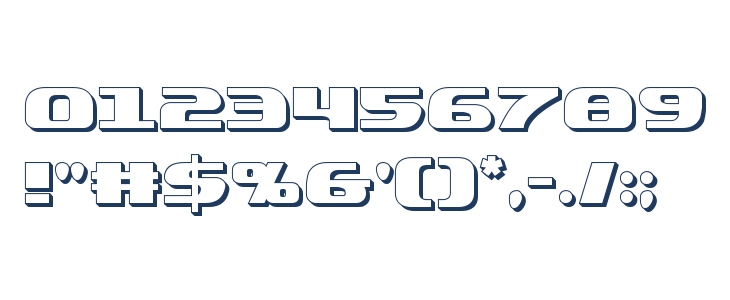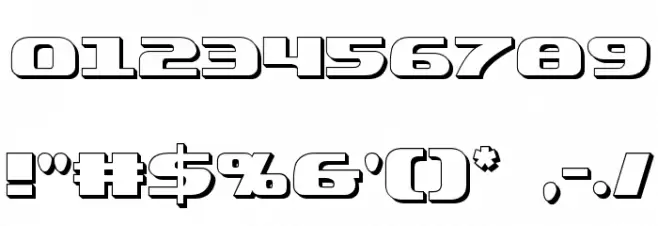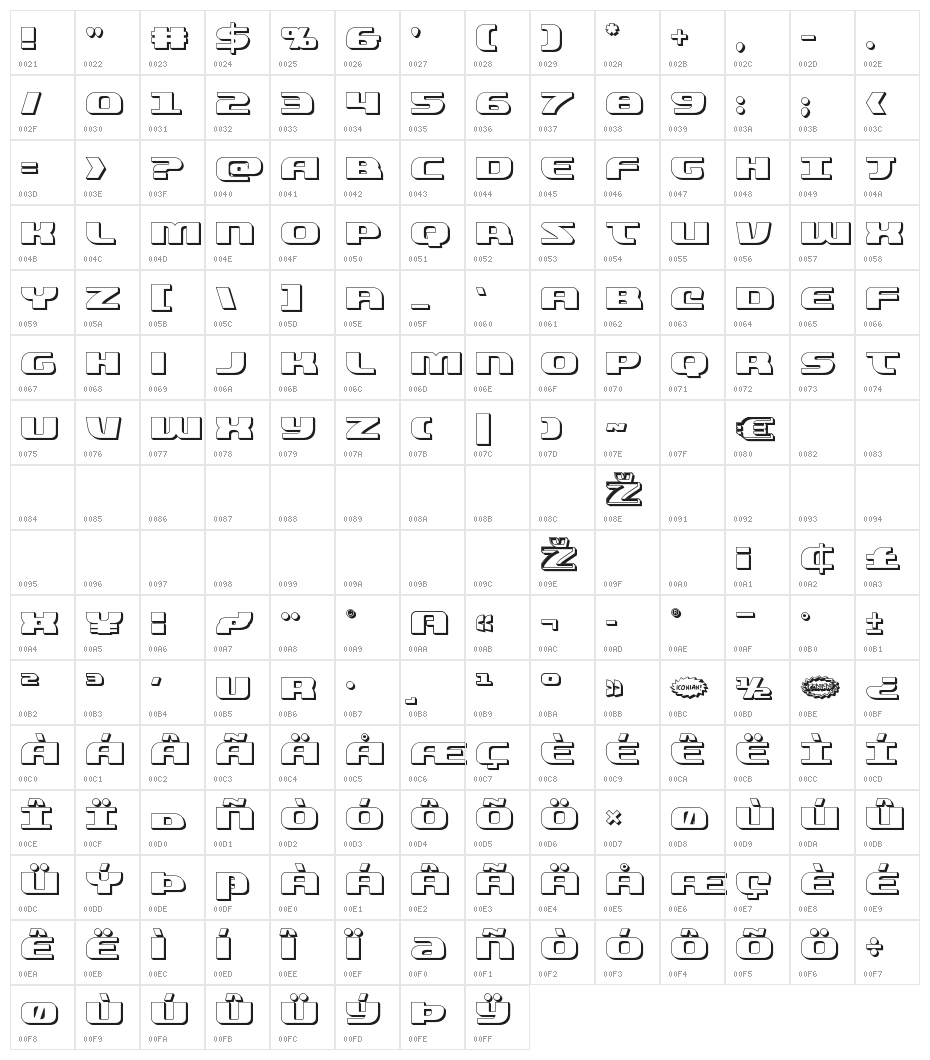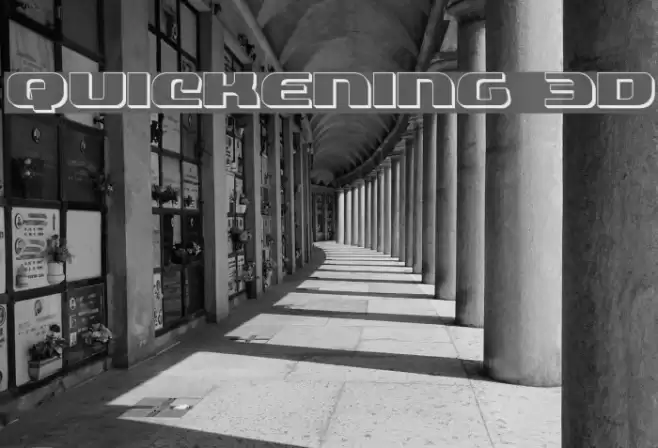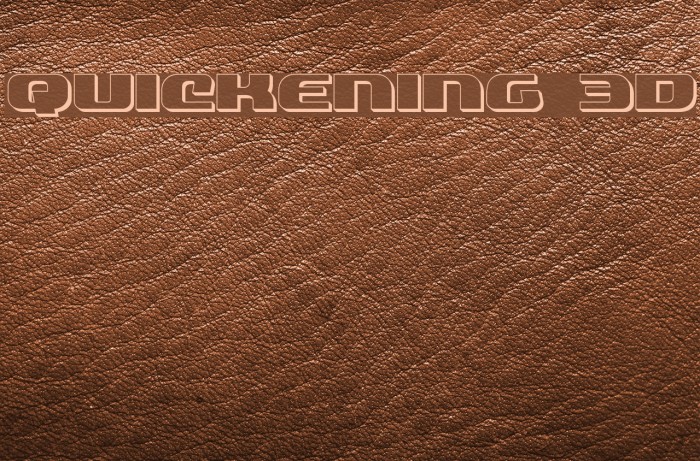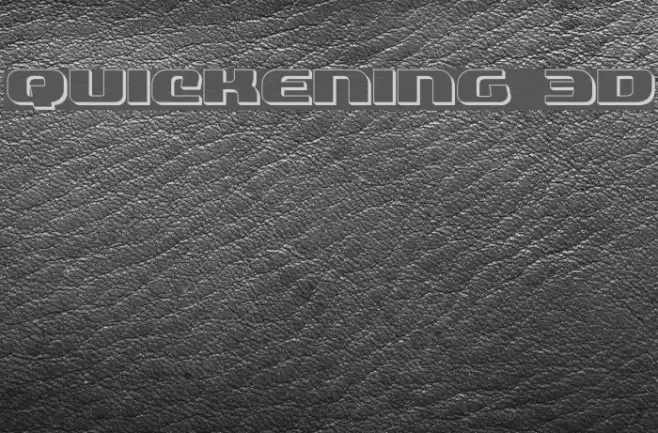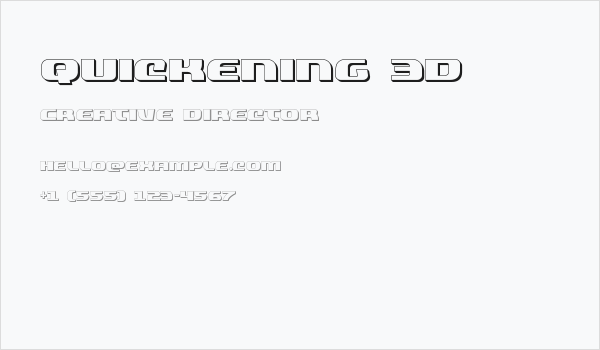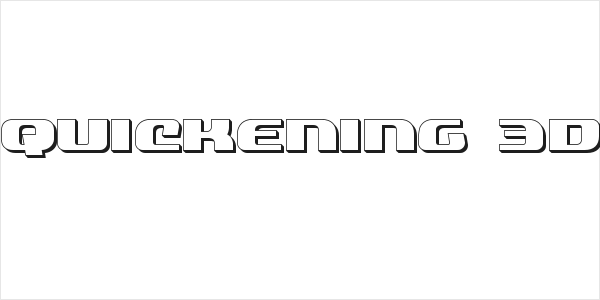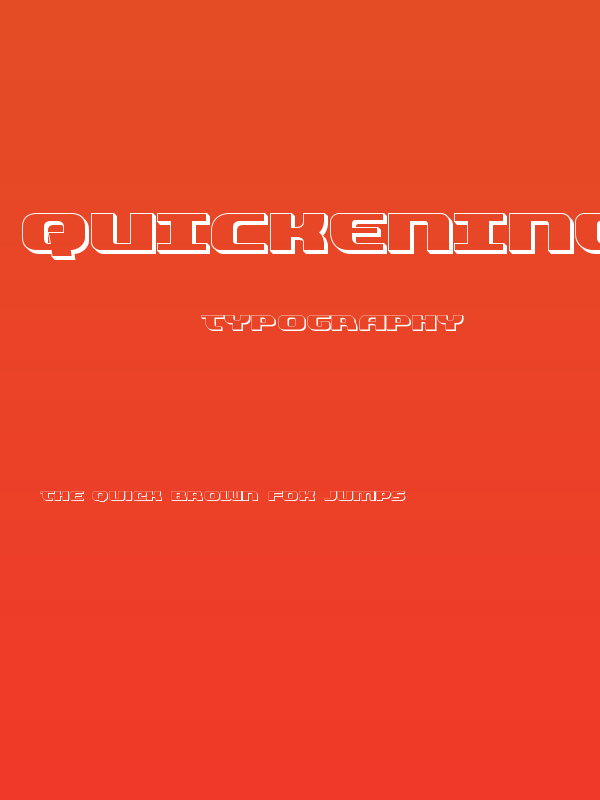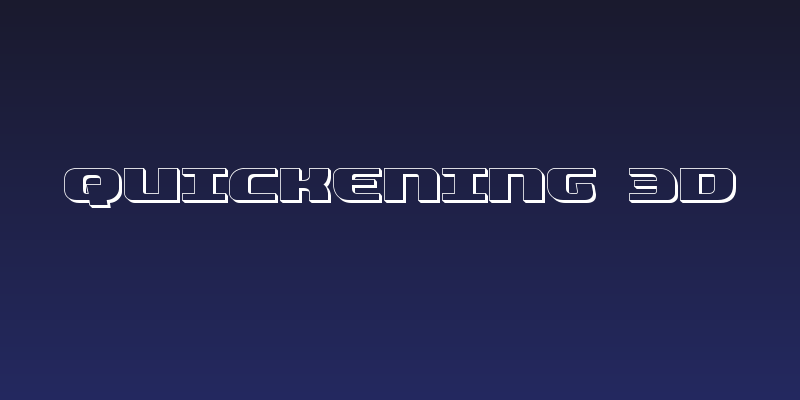
Quickening 3D Font
Quickening 3D Description
This font features a bold, three-dimensional style with a strong geometric influence. The characters are outlined, giving them a hollow appearance that enhances the 3D effect. Each letter is constructed with sharp angles and clean lines, creating a futuristic and dynamic look. The uppercase and lowercase letters maintain a consistent style, while the numbers and special characters complement the overall design. This font is ideal for projects that require a modern and impactful visual presence.
| Proposed Projects | Ideal for video game titles, sci-fi movie posters, tech company logos, and modern advertising campaigns. |